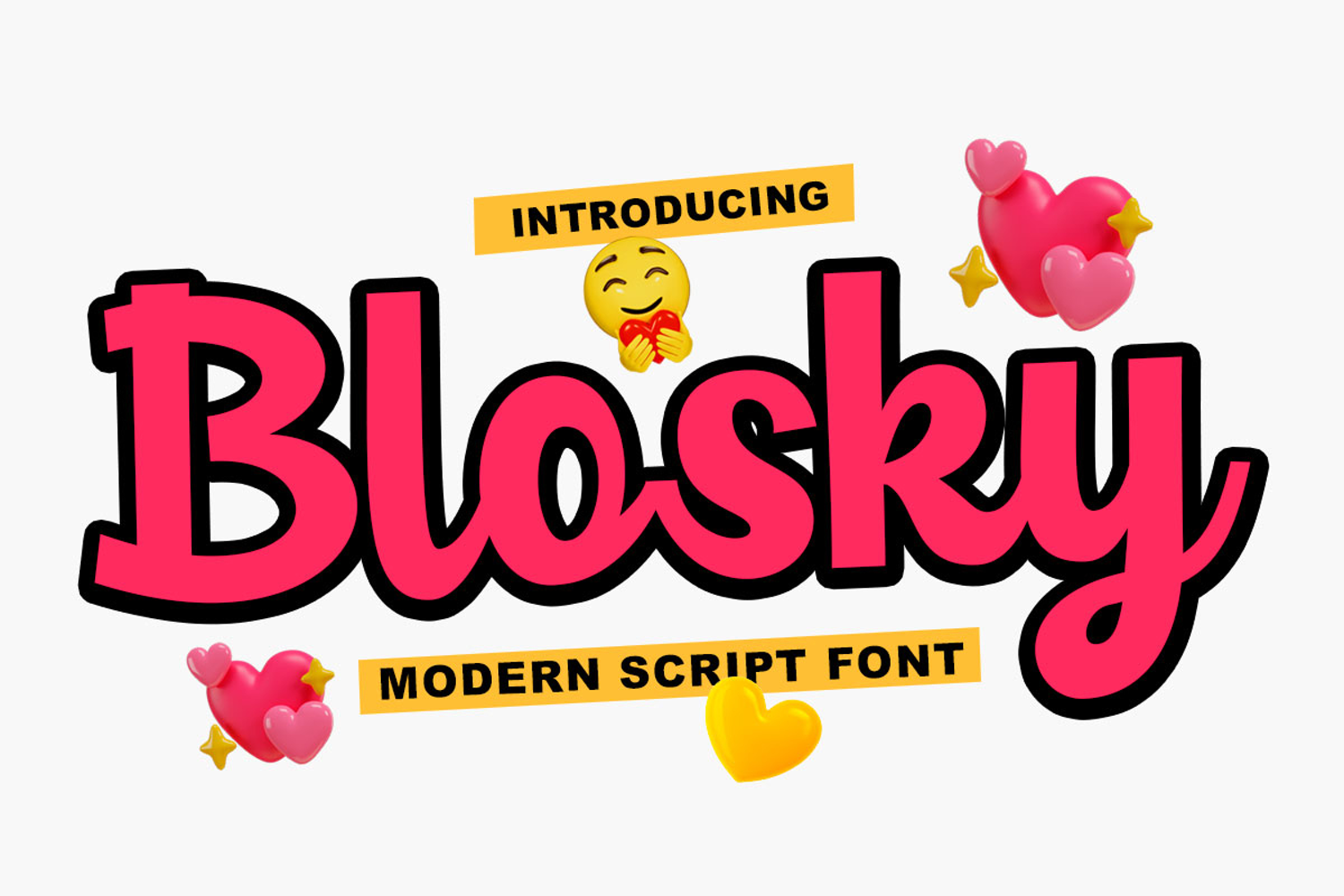
Blosky Script
Blosky Script is a modern script font with a classic and elegant touch.
Blosky Script is appealing because it's sleek, clean, feminine, sensual, glamorous, simple, and highly legible, thanks to its many luxurious letter connections. I also offer a number of stylish alternatives for some of the letters. This classic style is perfect for various formal applications such as invitations, labels, restaurant menus, logos, fashion, makeup, stationery, novels, magazines, books, greeting/wedding cards, packaging, labels, or any kind of advertising needs. . . . . . .